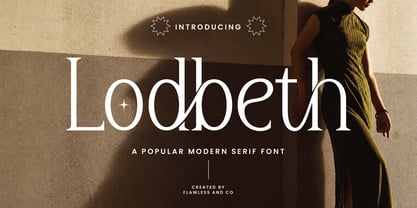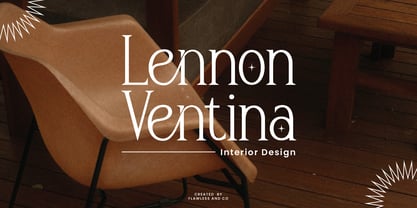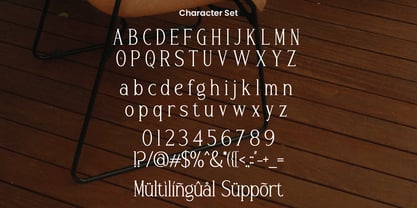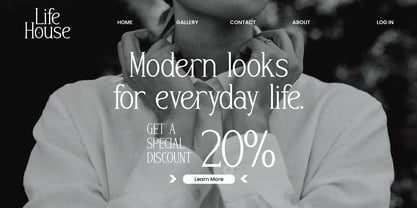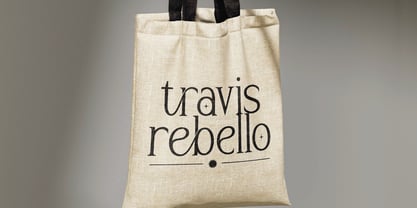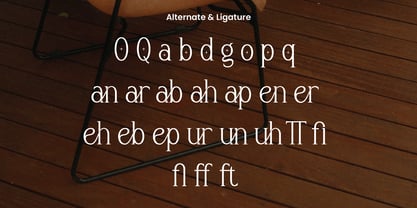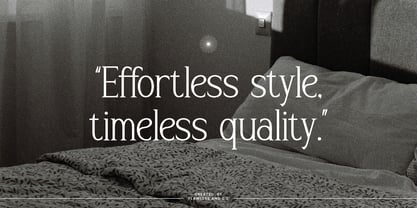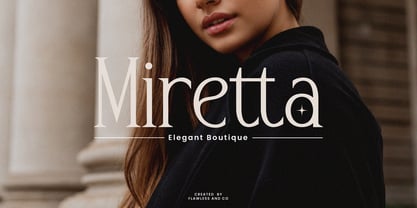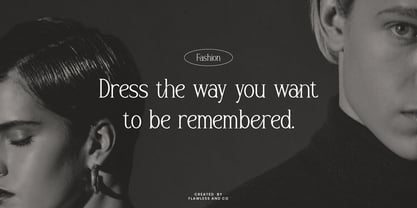
Lodbeth
Die Schriftfamilie Lodbeth wurde von Achmad Yani entworfen und von Flawlessandco veröffentlicht. Lodbeth enthält 1 Stile. Mehr über diese Familie
Lodbeth features a harmonious contrast of thick and thin strokes, refined letterforms, and modern serif details that retain a strong personality. Each character is carefully crafted to deliver a polished and aesthetic look—whether used in large headlines or smaller text sizes. Elevate your design projects with Lodbeth, a modern serif font that blends timeless elegance with clean, contemporary flair. Designed to evoke a premium and sophisticated feel, this font is perfect for luxury branding, fashion editorials, minimalist logos, and upscale product packaging.
Features :
Multilingual, Uppercase alphabet A-Z, Lowercase alphabet a-z, Numbers 0-9, Some punctuation, Alternates & Ligatures